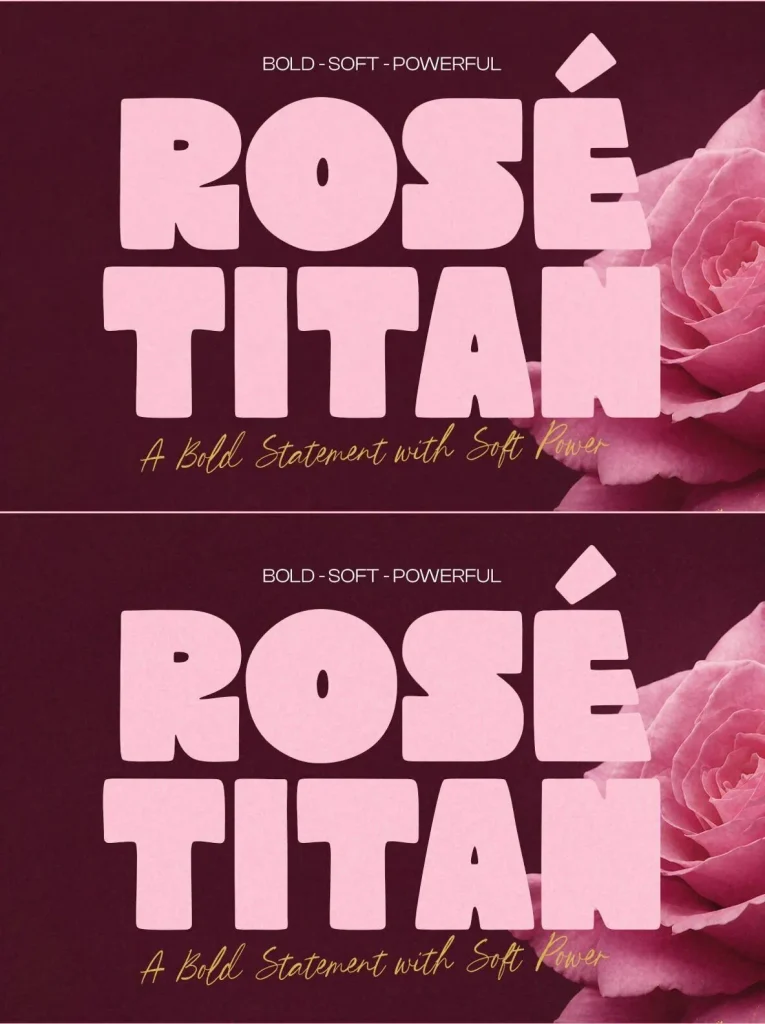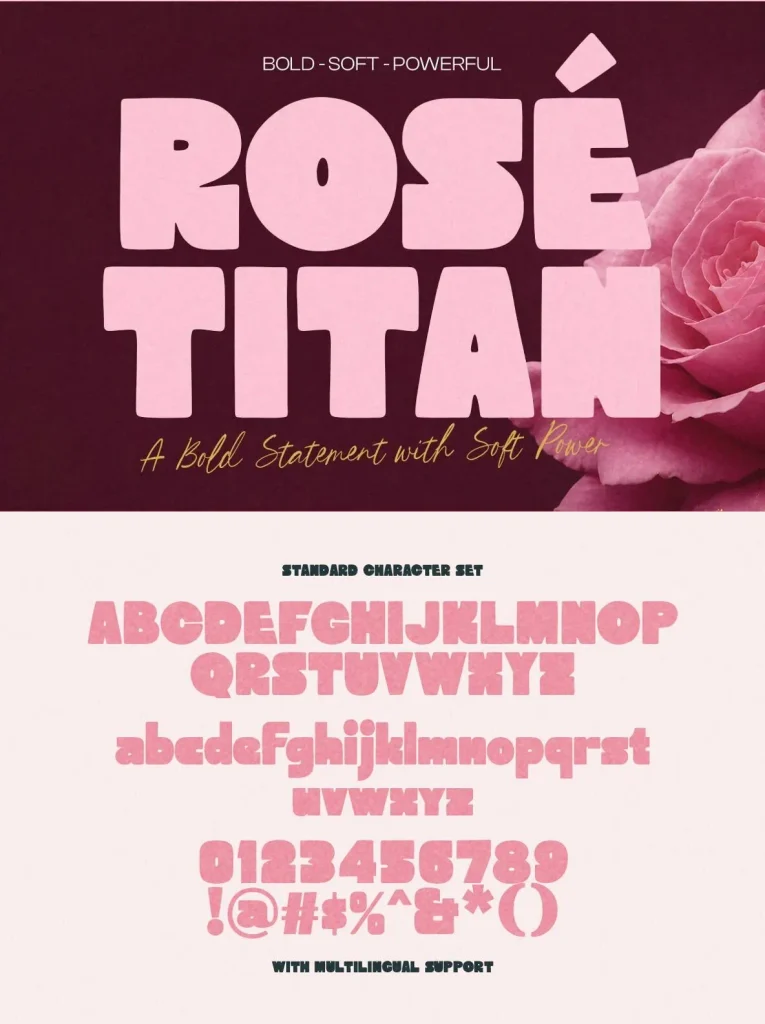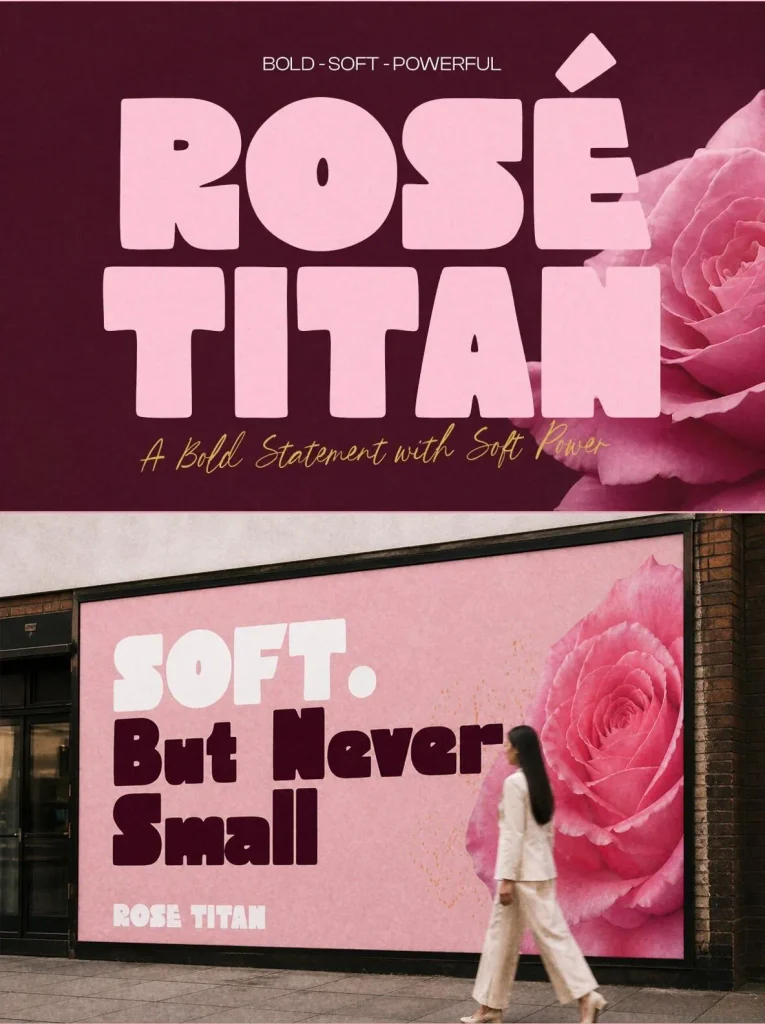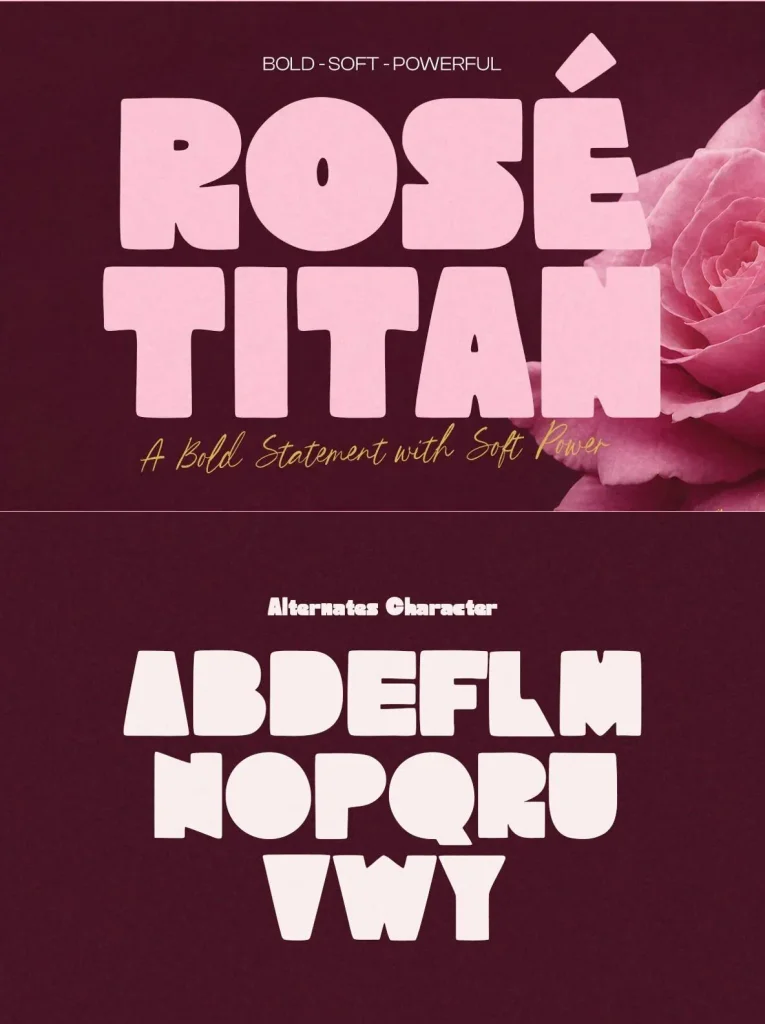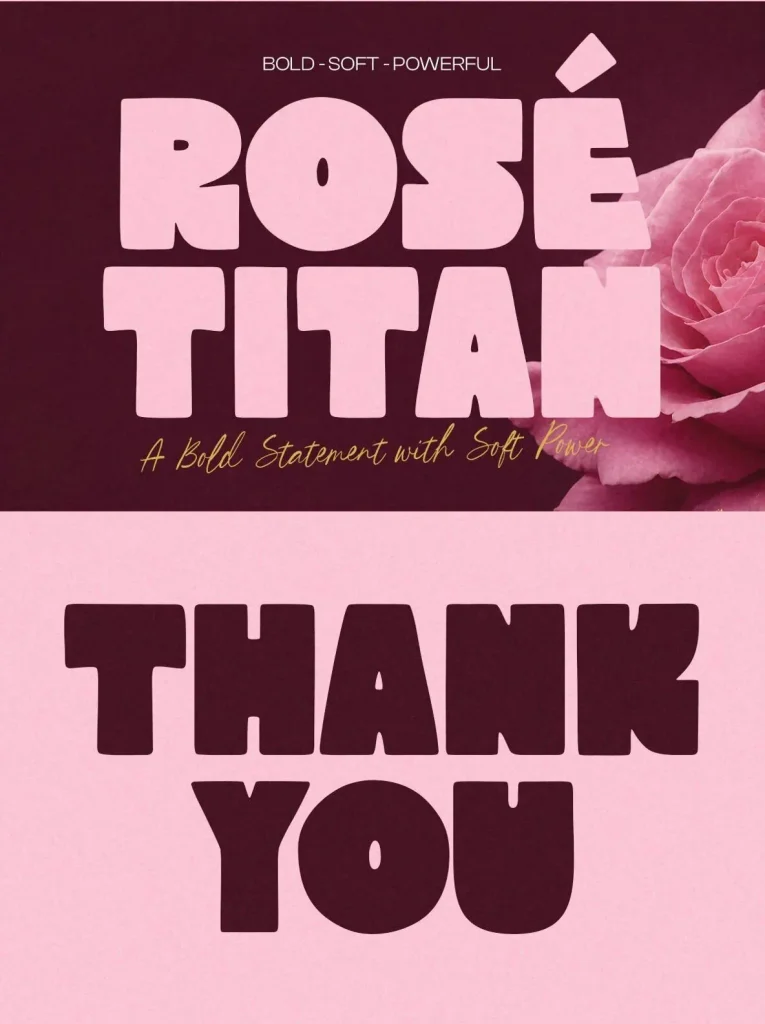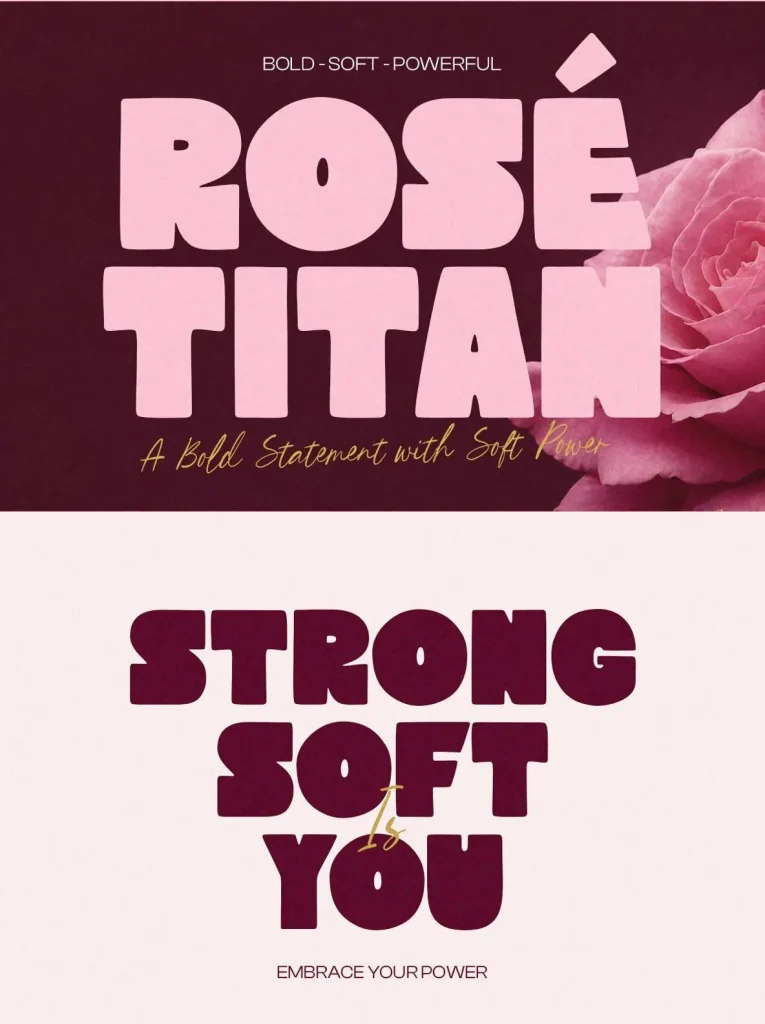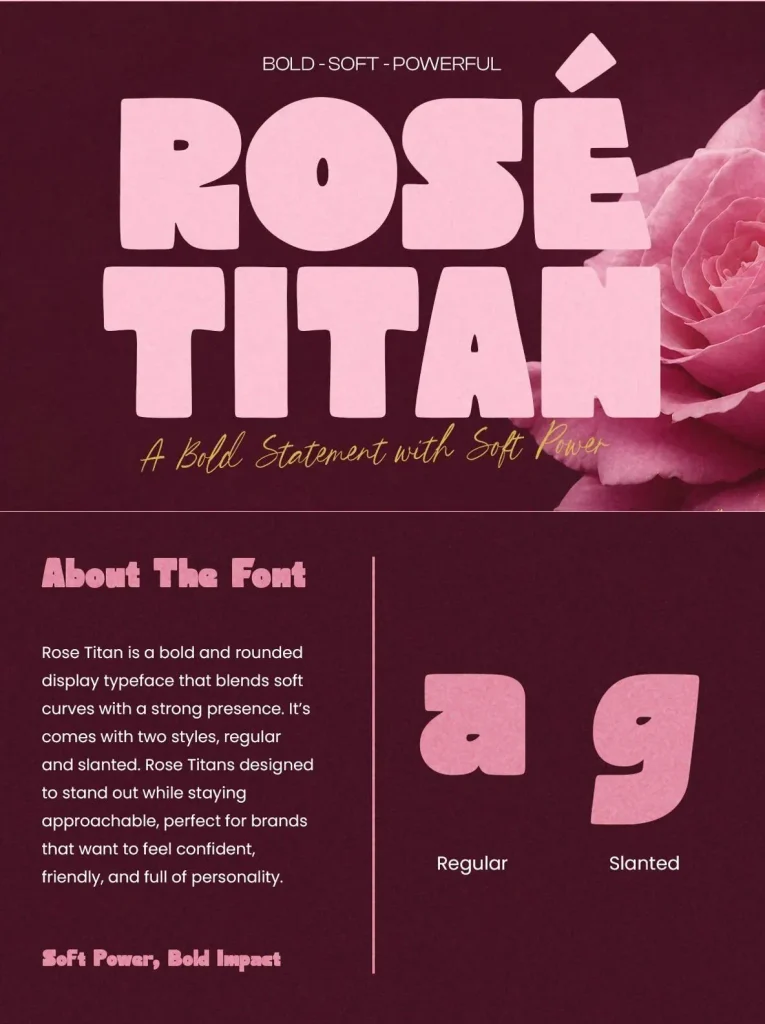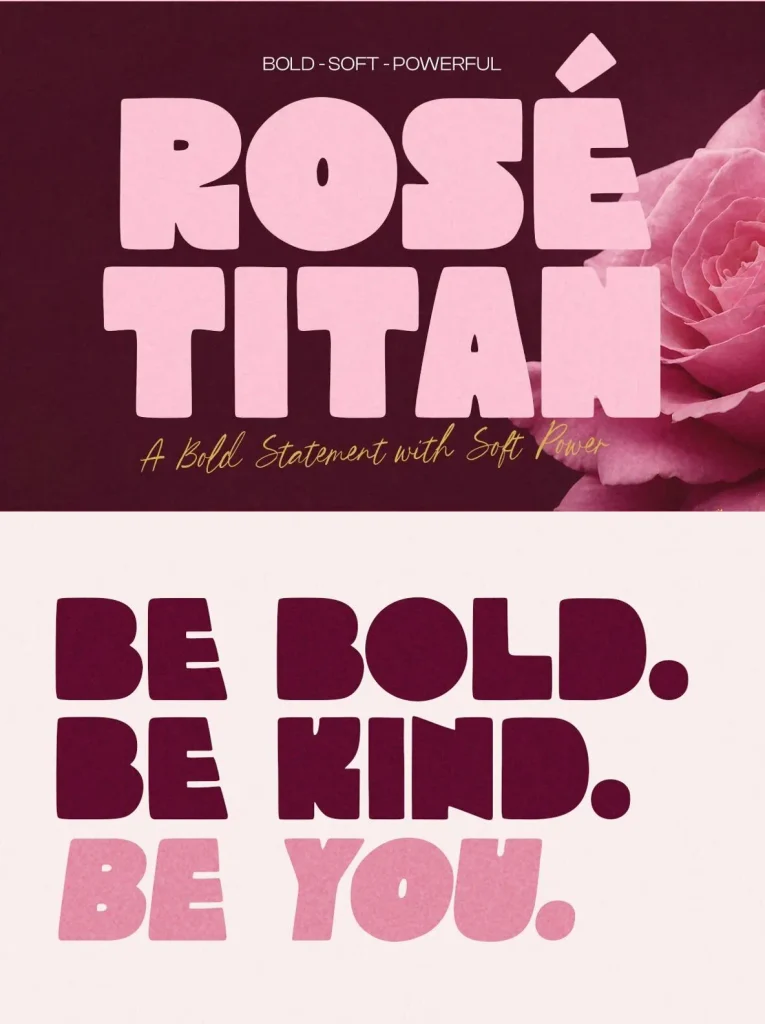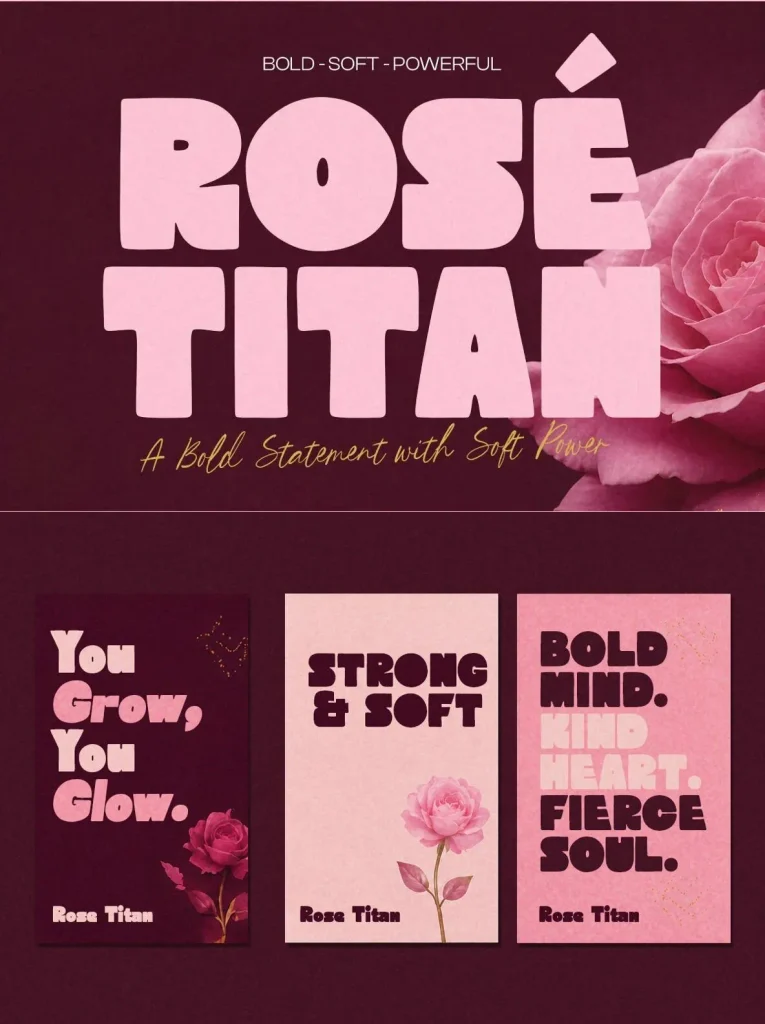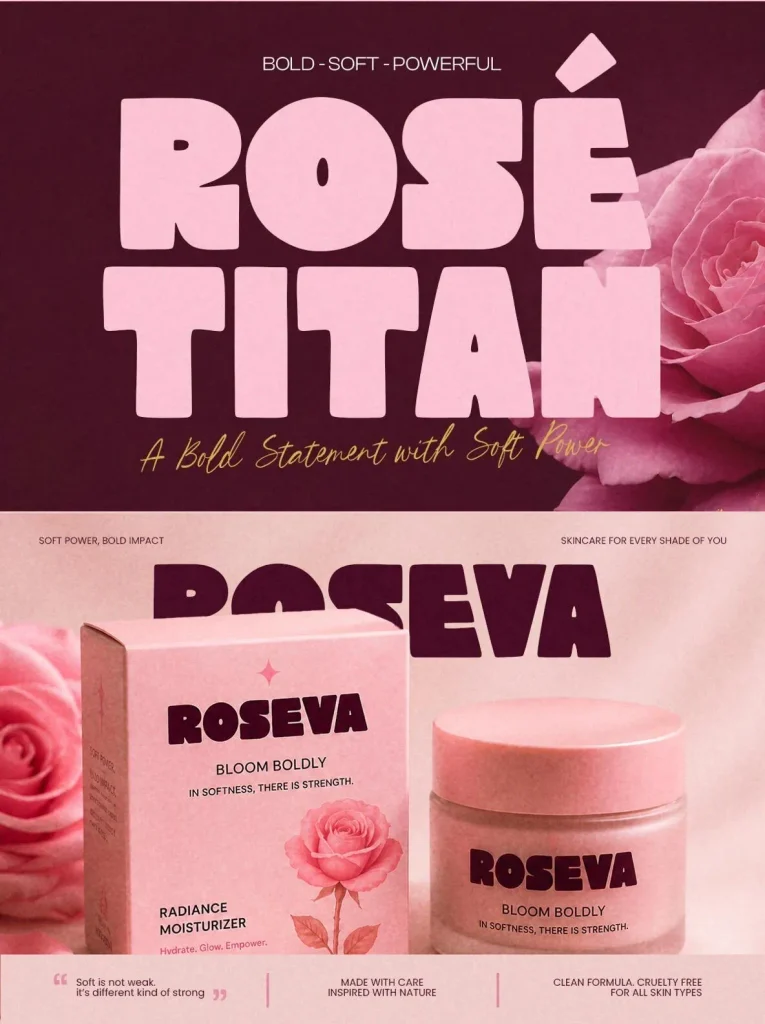
Rose Titan Font
Rose Titan — Bold Beauty with Bite
Rose Titan is a bold display font with chunky curves, soft corners, and a strong feminine energy that feels powerful and sweet at the same time. Inspired by retro poster styles and modern beauty branding, this typeface gives headlines, logos, packaging, and social graphics a smooth, confident look without losing its playful charm.
Its rounded forms feel approachable, while its weight brings clear visual presence. Rose Titan suits projects that need expressive typography with warmth, personality, and a polished display style. Use it when you want lettering that feels memorable, stylish, and full of character.
Features
Uppercase & lowercase
Numbers and punctuation
Alternates & Ligatures
Multilingual Support